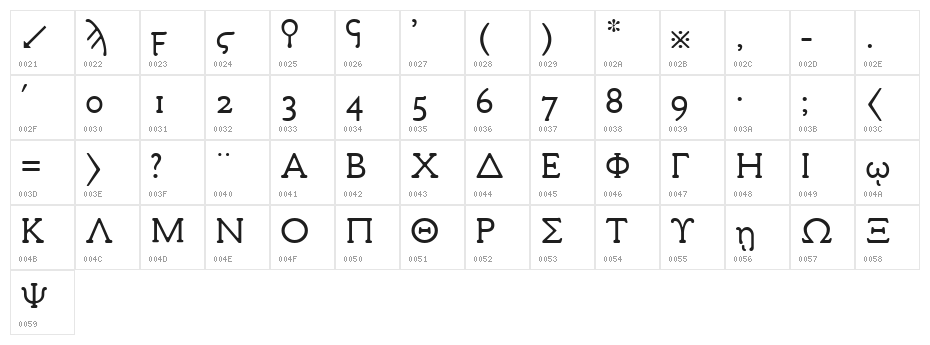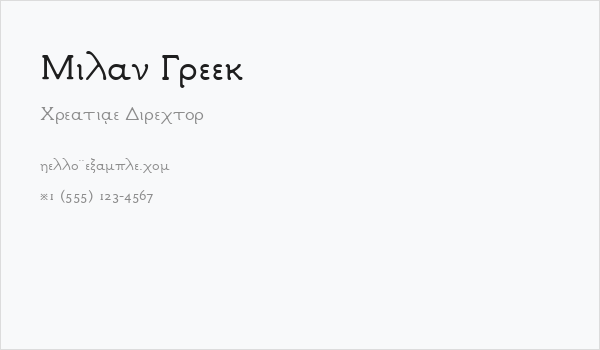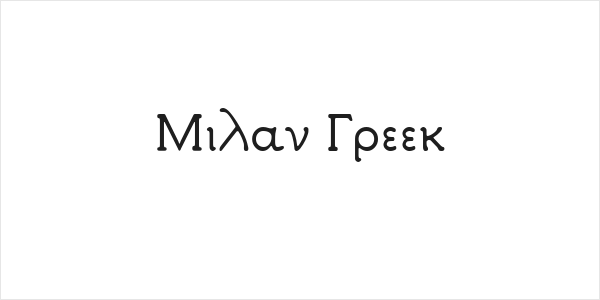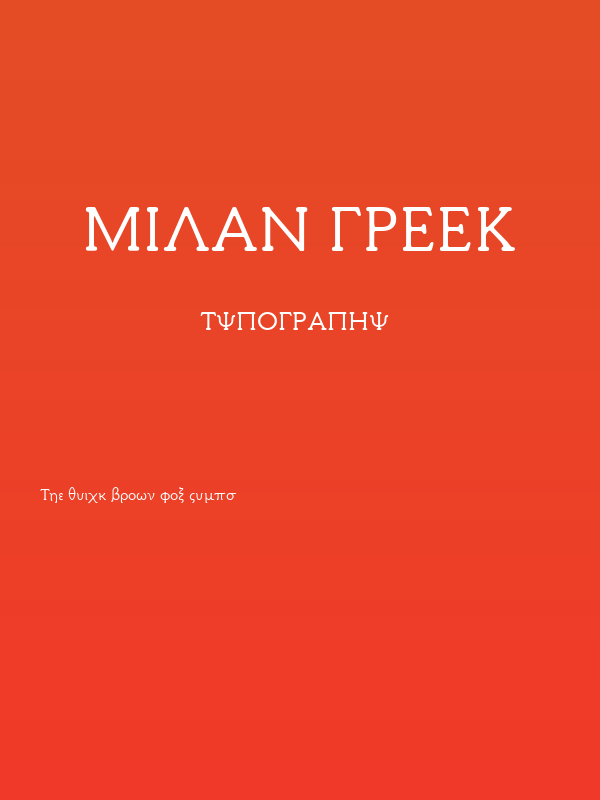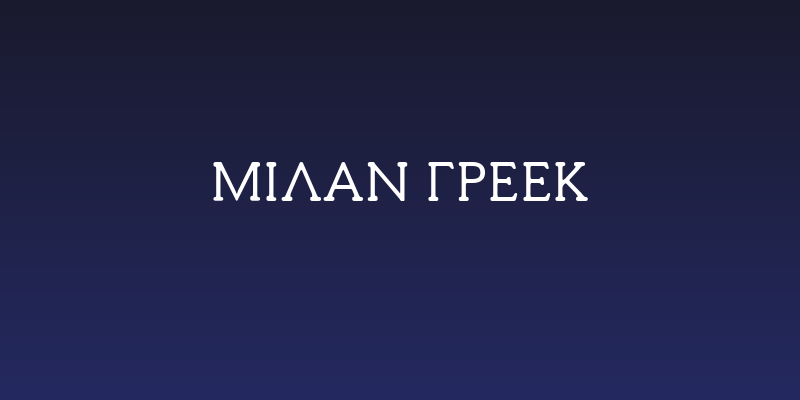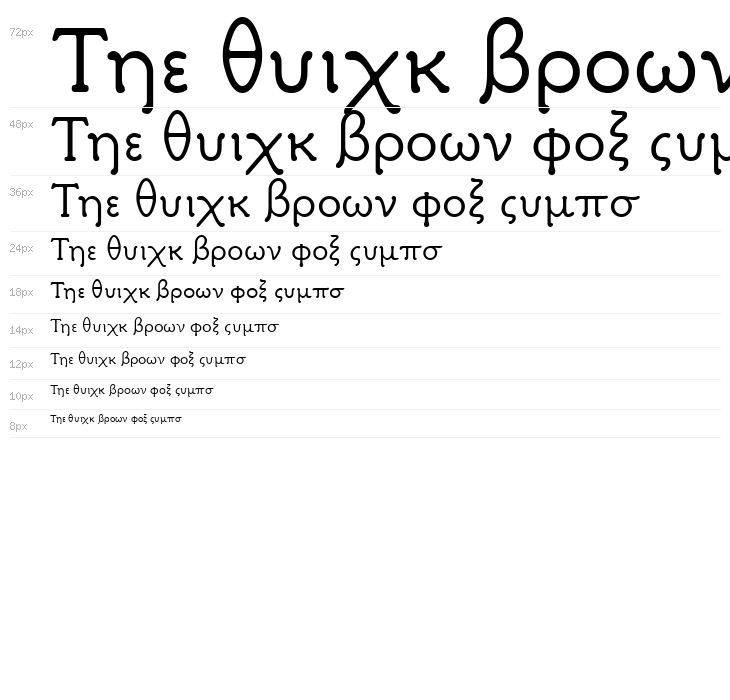
Milan Greek Font
Milan Greek Description
This font features a blend of classical Greek letterforms with a modern twist, offering a unique and elegant aesthetic. The uppercase letters are bold and prominent, while the lowercase letters maintain a consistent flow with subtle curves. The numerals are distinct and easily readable, complementing the overall style. Special characters are thoughtfully designed, maintaining the font's cohesive look. The font's design is both functional and decorative, making it suitable for a variety of applications.
| Proposed Projects | Ideal for projects that require a touch of classical elegance, such as book covers, educational materials, or cultural event posters. |